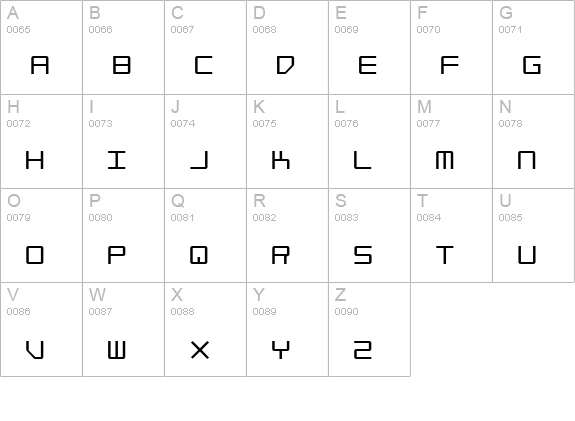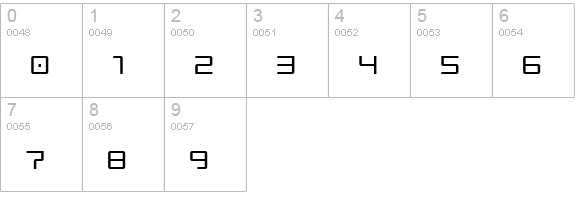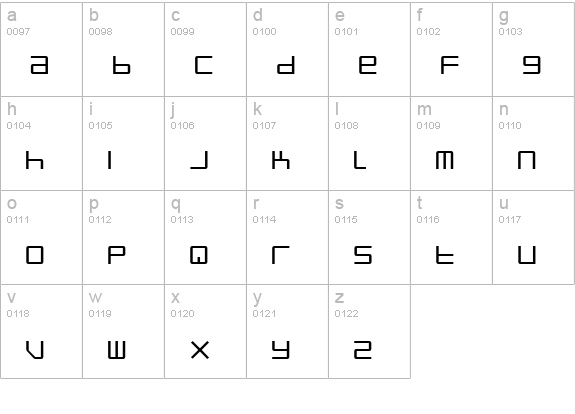
blockit Thin Font Details
blockit Thin is a delicate, low-contrast variant in the blockit typeface family \xE2\x80\x94 well suited to fashion editorial, minimal branding, and high-contrast display.
Blockit Thin font is a sleek and modern typeface that exudes a sense of sophistication and elegance. Its clean lines and minimalist design make it perfect for a wide range of design projects, from branding to editorial design. The thin weight of this font adds a touch of delicacy and refinement to any text, making it ideal for conveying a sense of luxury and exclusivity. What's even better is that Blockit Thin font is available for free download at FontsMarket.com, allowing designers and creatives to access this premium font without any costs. Whether you're working on a personal project or a client commission, Blockit Thin font is a versatile and stylish choice that is sure to elevate your designs to the next level. Download it today and add a touch of sophistication to your typography arsenal.